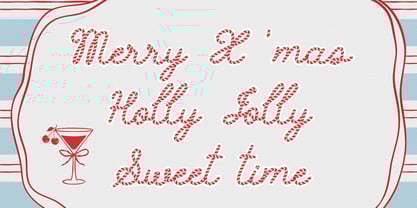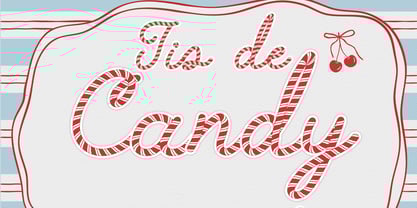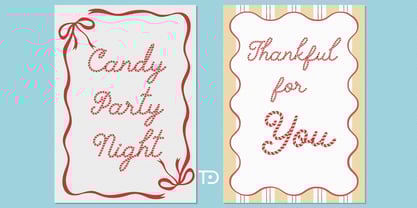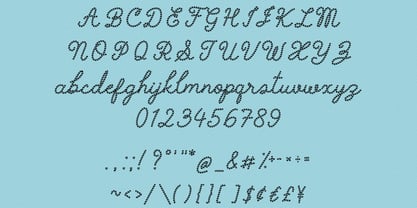
Tis De Candy
by Tanon Design
The Tis De Candy Font Family was designed by Tanonnat Kaeoket and published by Tanon Design. Tis De Candy contains 1 styles. More about this family
Tis de Candy font is a fun and festive display font. It will look fantastic on all your Christmas-themed designs including t-shirt designs, mug designs, digital designs, crafts, cards, and any projects! Perfectly suited for any designs, this font adds a playful vibes to your posters, invitations, party flyers, signs, social media graphics, and more.